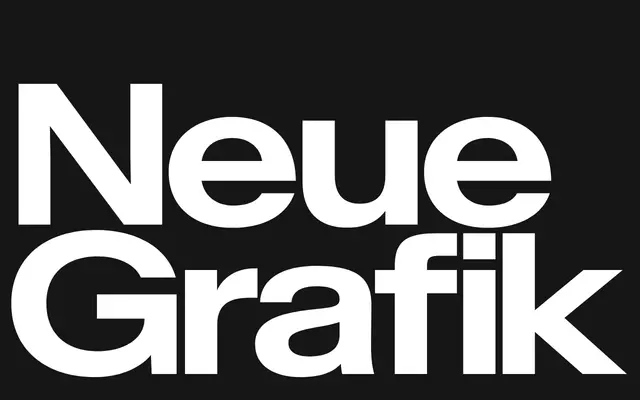
Baikal
Newglyph · Ian Party
A variable grotesque from Ian Party at Newglyph offering 144 styles across weight and width axes, designed around simplicity and a clean modern aesthetic.
Built on a variable font grid system, Baikal spans 144 static styles with a single variable font covering weight, width and italic axes. Each style carries 434 glyphs with broad Latin Extended language support. Used in production by clients including Havas, Bob Industries and the National Theatre of Scotland, it sits comfortably in branding, editorial and screen contexts.
Explicitly described as a Grotesque typeface, built on a variable font grid system with a clean, minimal aesthetic consistent with the grotesque tradition.